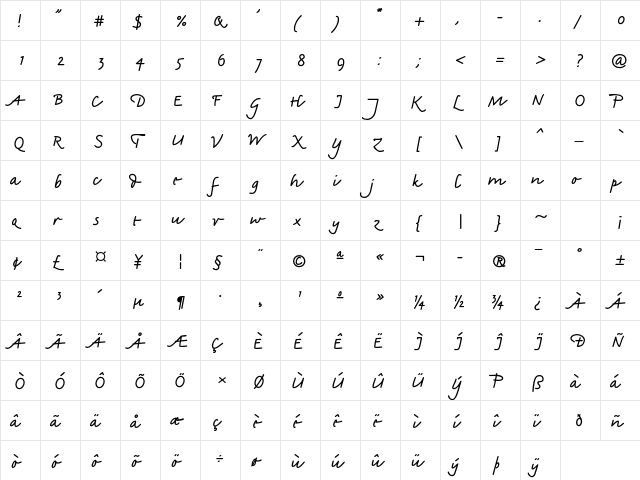
Amadeo Std Bold
Design Context for Amadeo Std Typeface
Amadeo Std is a composed and adaptable typeface that performs quietly and consistently across a wide range of design contexts. The heavy weight commands attention and anchors typographic hierarchies.